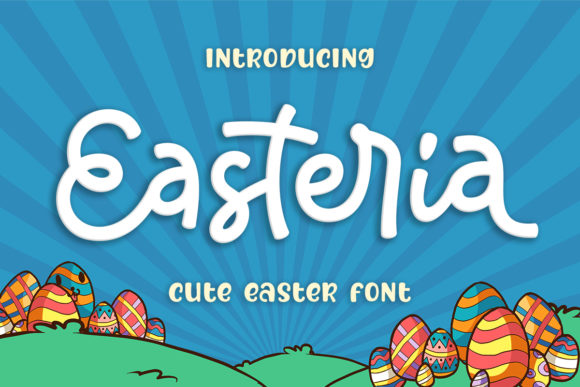
Introducing Easteria Font, the perfect addition to your creative arsenal!
Step into a world of whimsy and delight, where Easteria's charming script dances across your screen. This enchanting handwritten font is not just a collection of letters; it's a gateway to a realm of imagination and boundless expression.
With every stroke of Easteria, you'll feel the magic of authenticity come alive. Each curve, each flourish, embodies the spirit of fun and cuteness, turning your creative visions into captivating works of art. Let Easteria be your guide as you embark on a journey of self-expression and limitless possibilities.
Whether you're designing invitations, crafting social media posts, or creating unique branding materials, Easteria will transform your words into an unforgettable symphony. Its playful nature adds a touch of whimsy to any project, while its versatility allows it to seamlessly adapt to a wide range of styles.
Imagine your invitations adorned with Easteria's enchanting script, inviting guests to a celebration filled with laughter and joy. Envision your social media posts standing out from the crowd, captivating followers with their irresistible charm. Picture your branding materials exuding a personality that reflects the essence of your brand.
With Easteria Font, the possibilities are endless. Unleash your creativity and let your imagination soar!